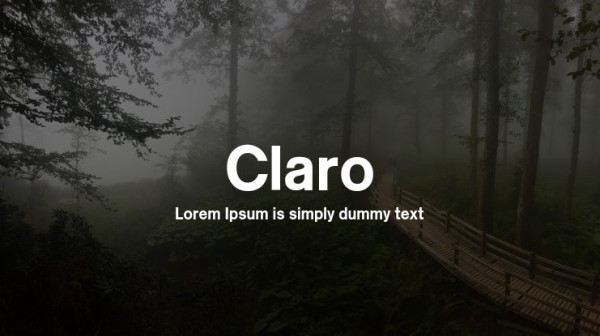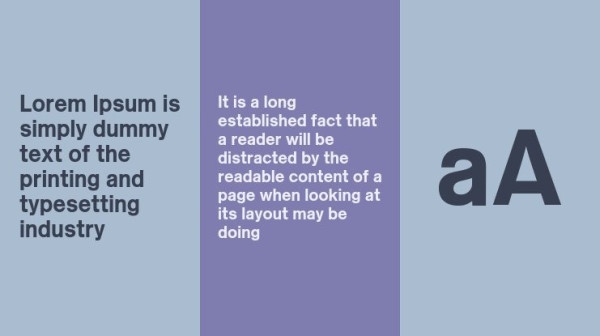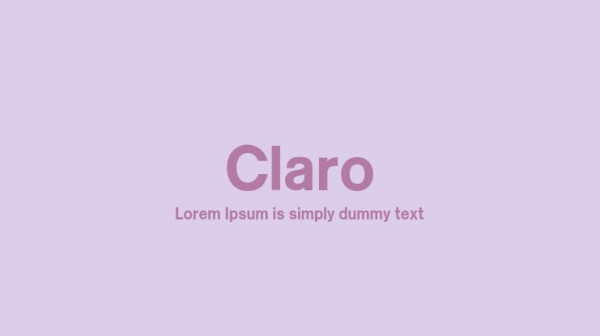
Claro Font, is a sans serif stunning when combined or separately. This sans serif font style is legible and stunningly designed.
Claro Font
| Designer Name: | Álvaro Thomáz |
| Classification: | Sans Serif Fonts, Style / Aesthetic Fonts |